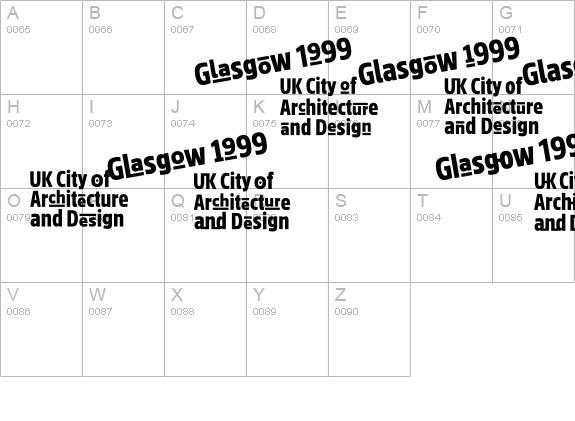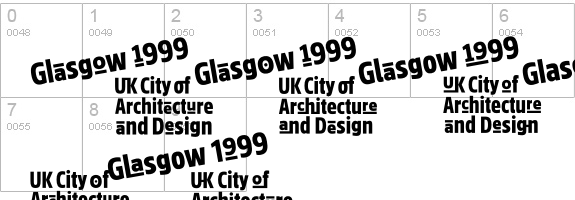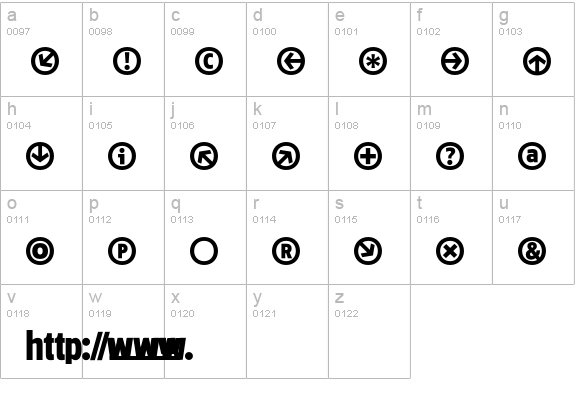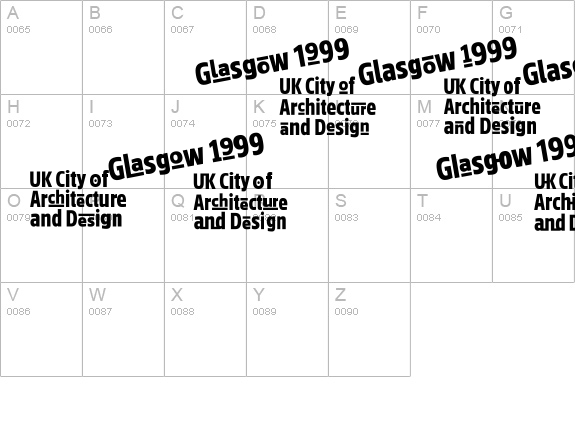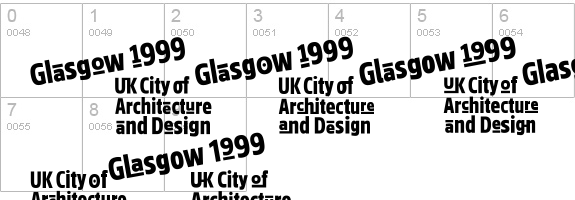
Glasgow1999-Logo font is a modern and stylish typeface that exudes sophistication and elegance. With its sleek lines and clean design, this font is perfect for creating eye-catching logos, branding materials, and any other design projects that require a touch of class. The Glasgow1999-Logo font is versatile and can be used in a variety of contexts, from fashion to technology to luxury brands. Best of all, Glasgow1999-Logo font is available for free download at FontsMarket.com. So whether you're a seasoned designer looking to add a new font to your collection or a beginner experimenting with different styles, you can access this stunning font without having to worry about any costs. Download Glasgow1999-Logo font today and elevate your design projects with this elegant and timeless typeface.